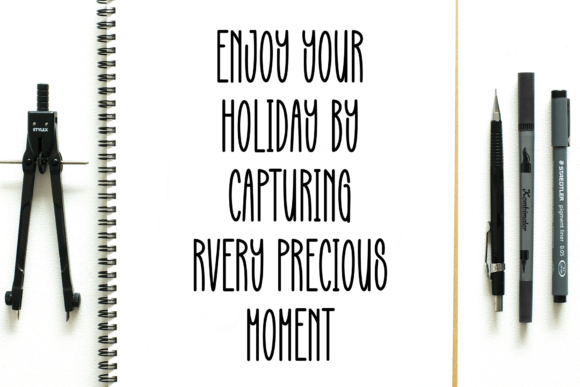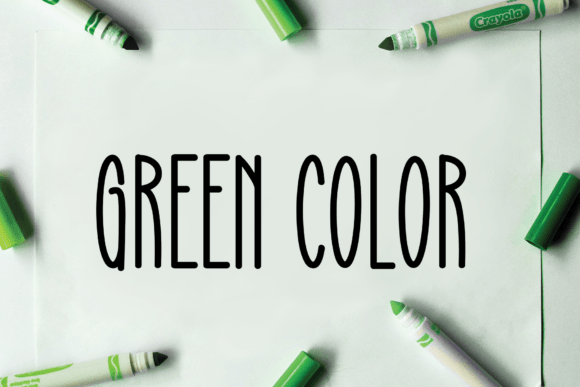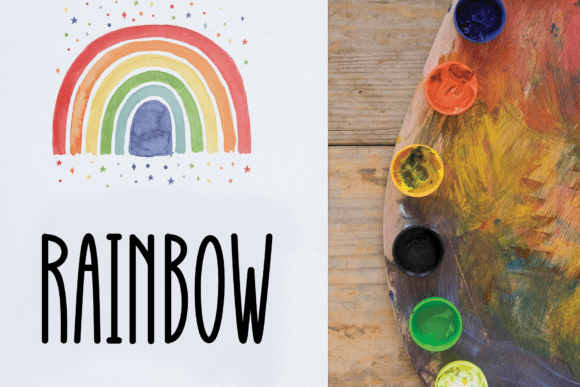
March Spring is a bold, condensed display font with a rustic, β€œinto-the-wild” aesthetic.
Characterized by its tall x-height and uniform monolinear strokes, this font commands attention without feeling heavy It is the perfect companion for outdoor-themed projects, artisanal bakery logos, and seasonal event posters that require a grounded, approachable presence.